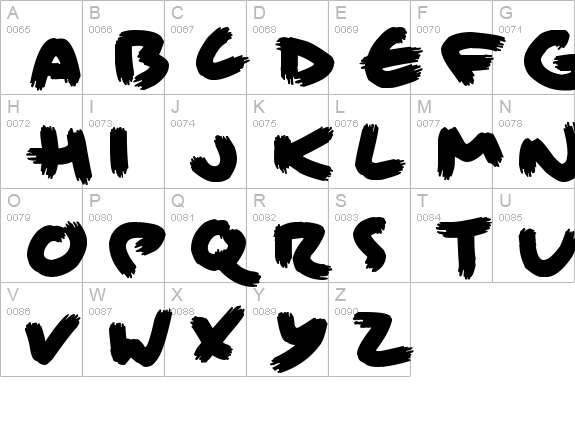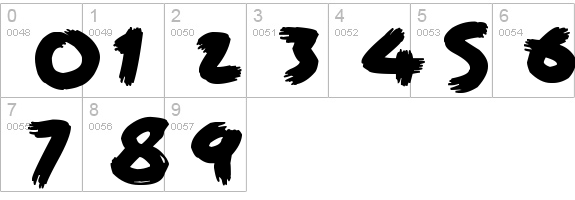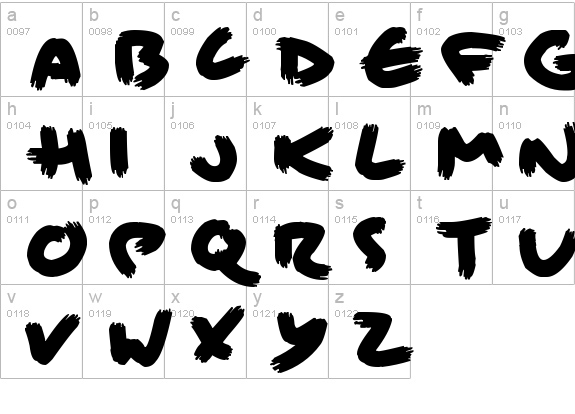
Brisk Bristle Brush Font Details
Introducing the Brisk Bristle Brush font - a versatile and dynamic typeface that exudes energy and creativity. With its bold strokes and sharp angles, this font is perfect for making a statement in any design project. The Brisk Bristle Brush font captures the essence of hand-painted brush strokes, adding a touch of authenticity and artistic flair to your work.
Whether you're designing a poster, logo, or social media graphic, the Brisk Bristle Brush font will bring your creations to life with its unique style and character. Its edgy and modern look will make your text stand out and grab attention.